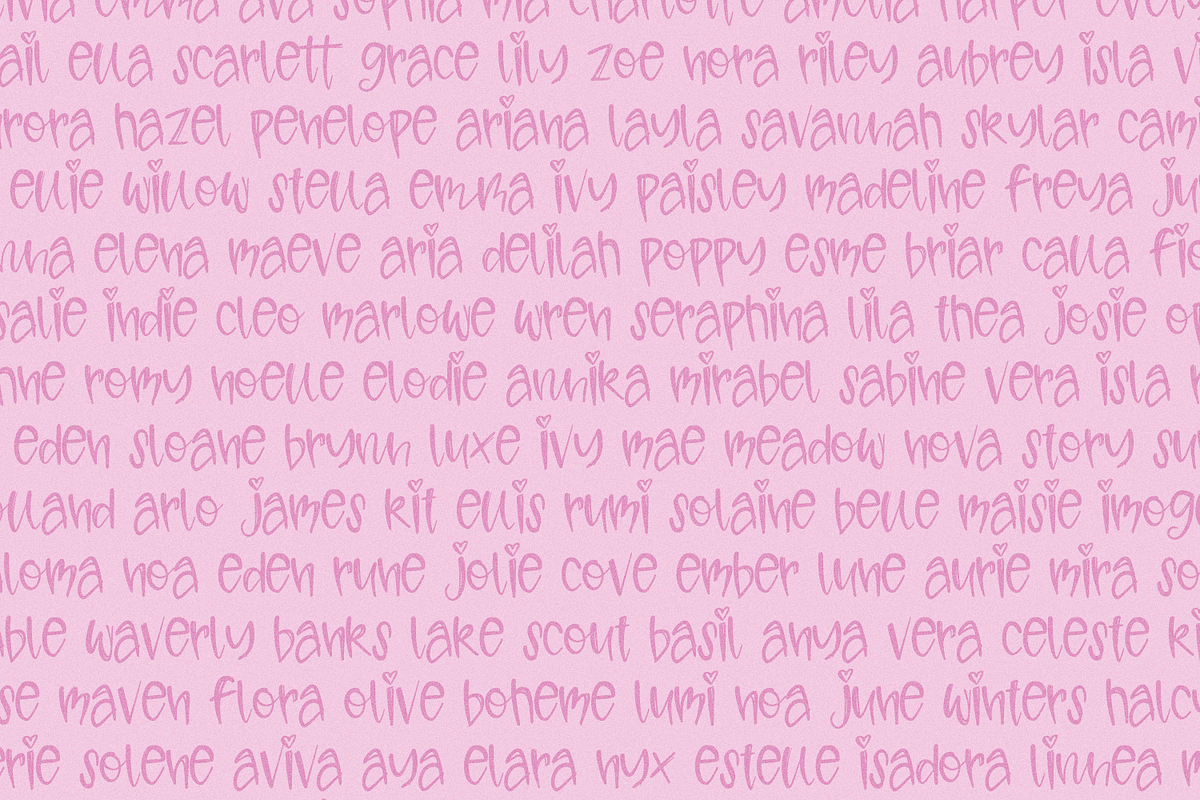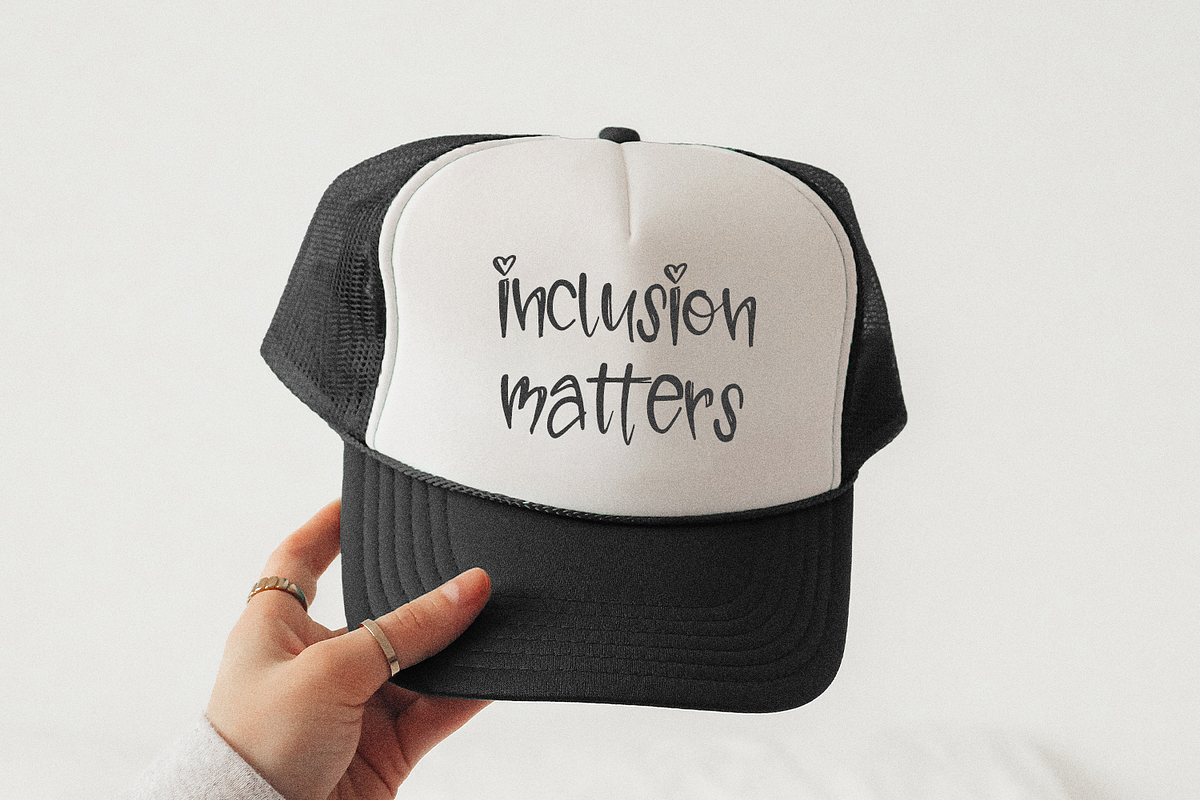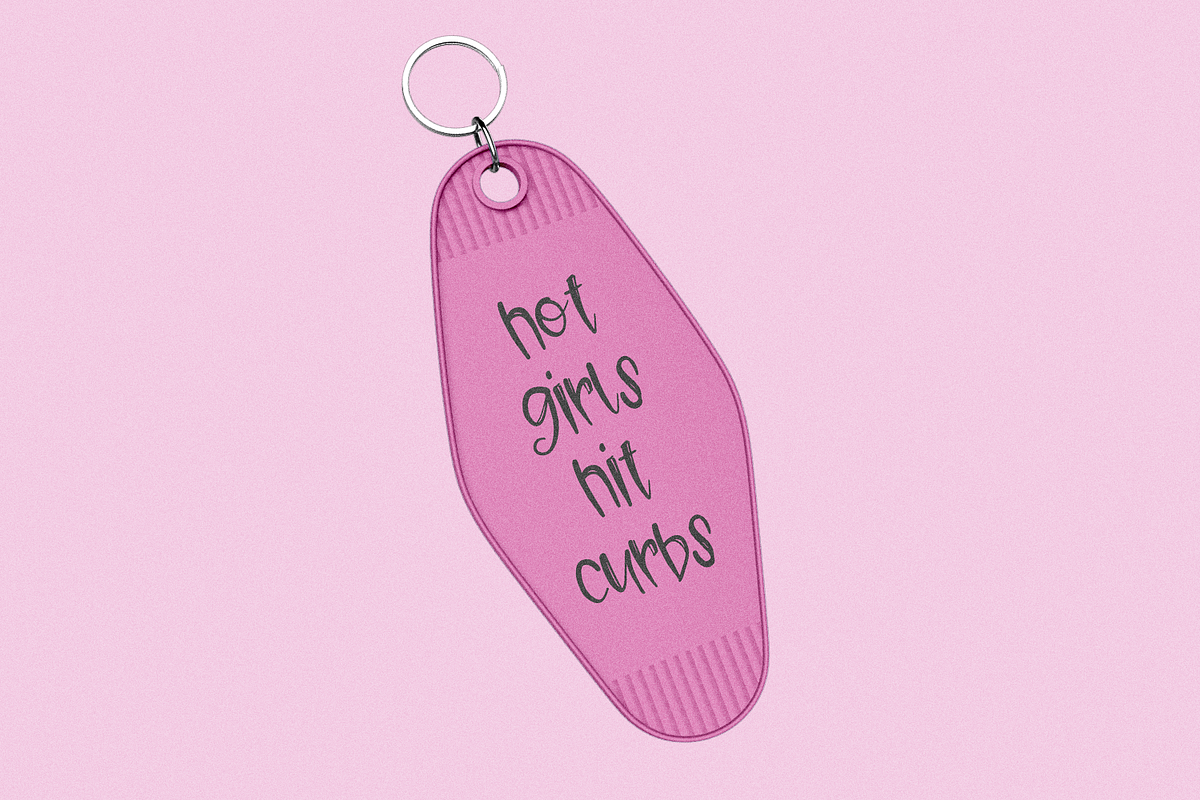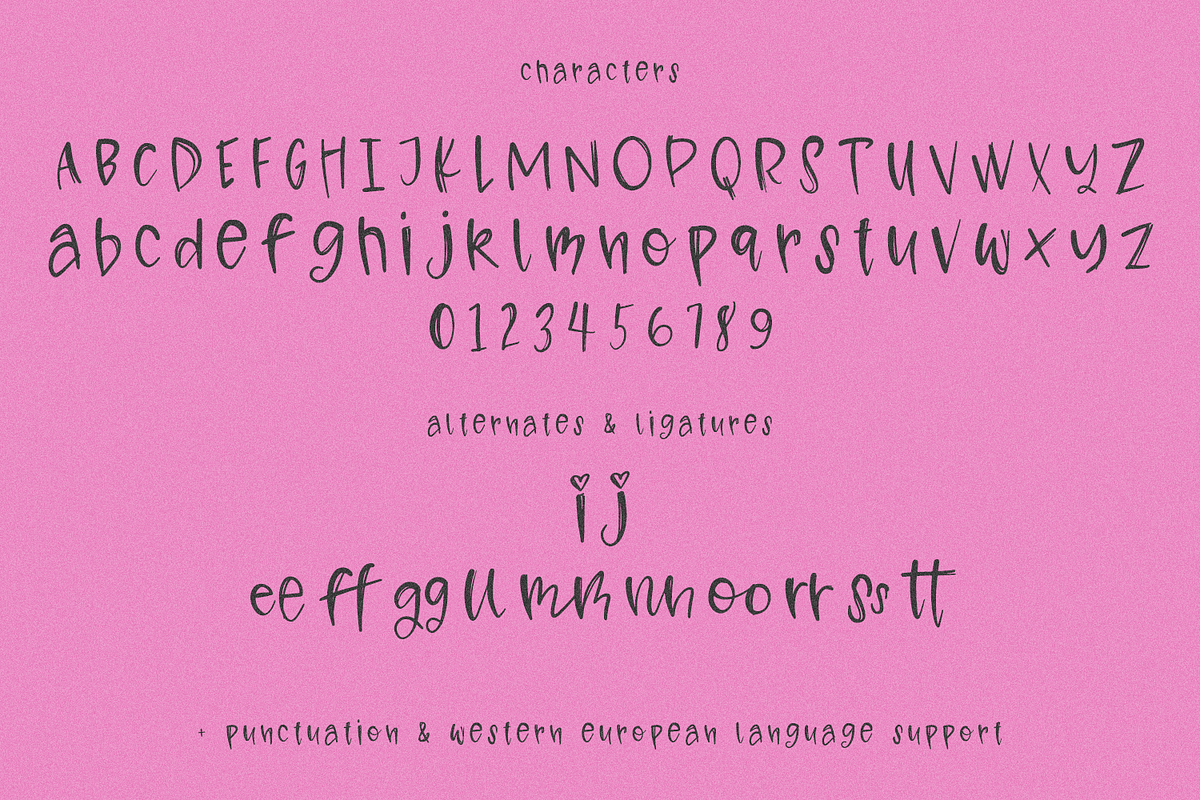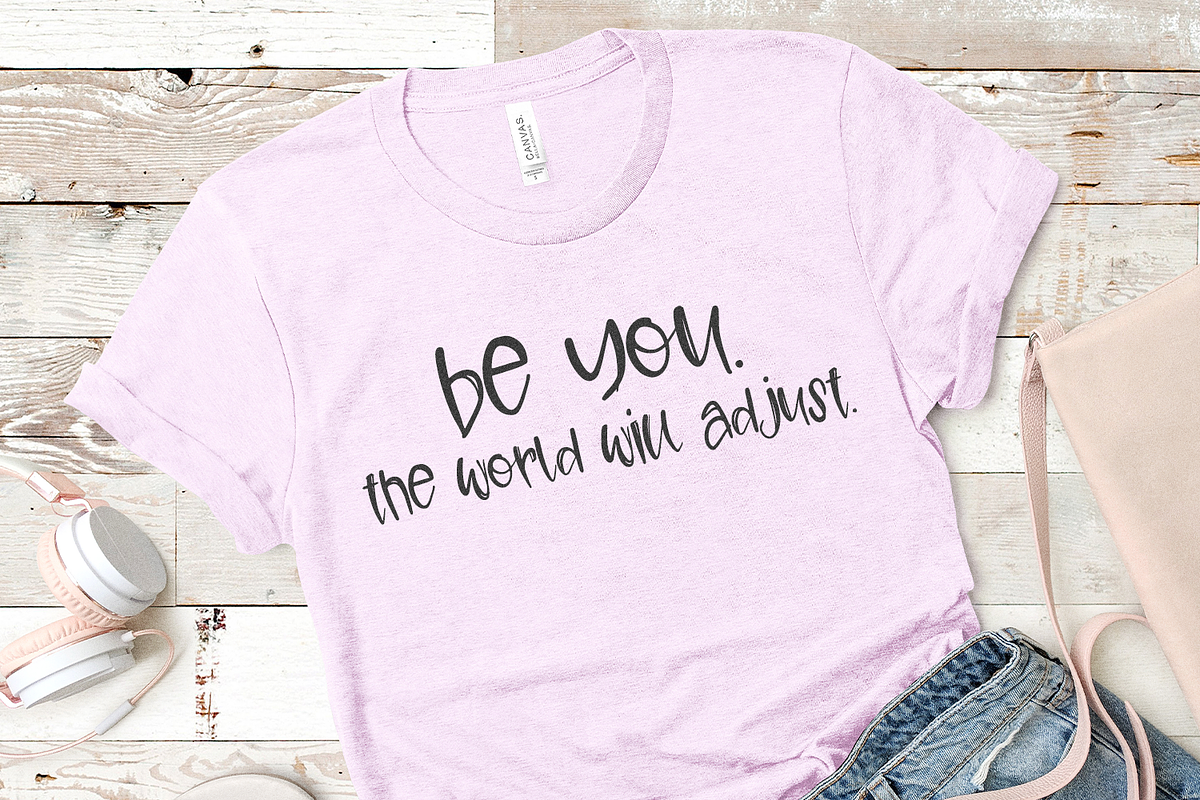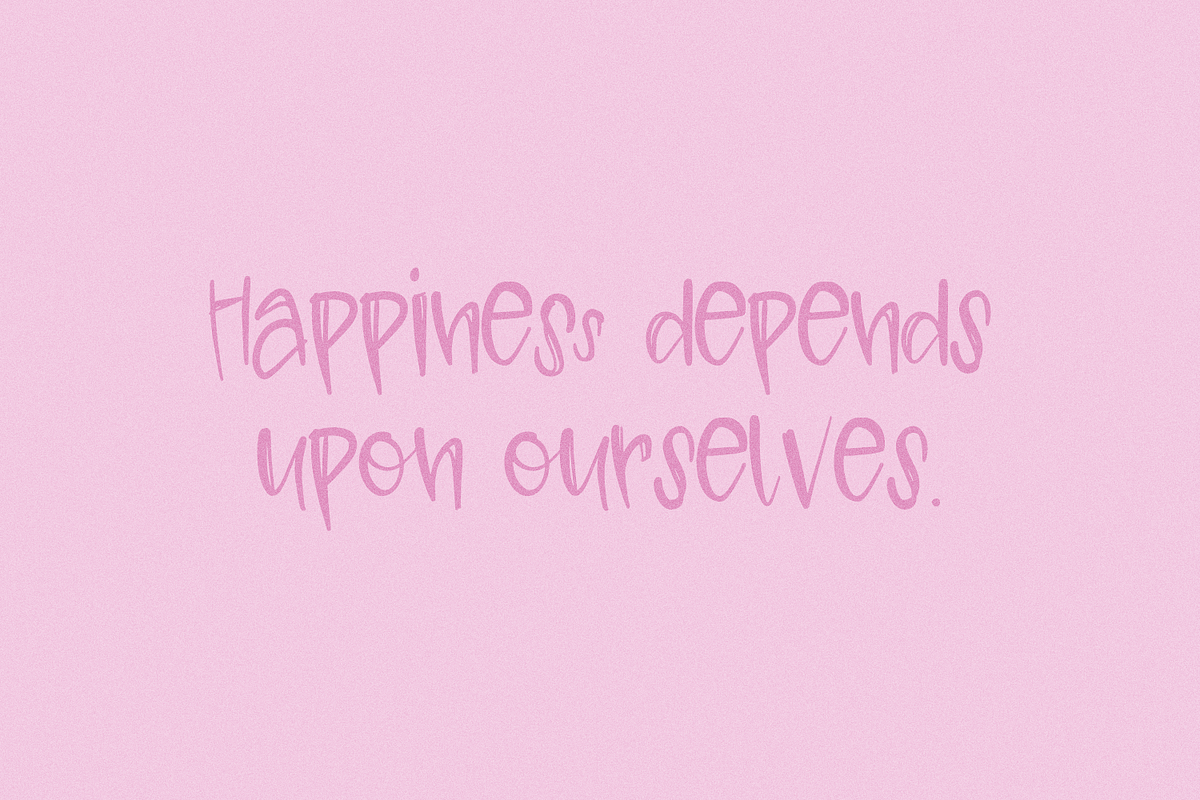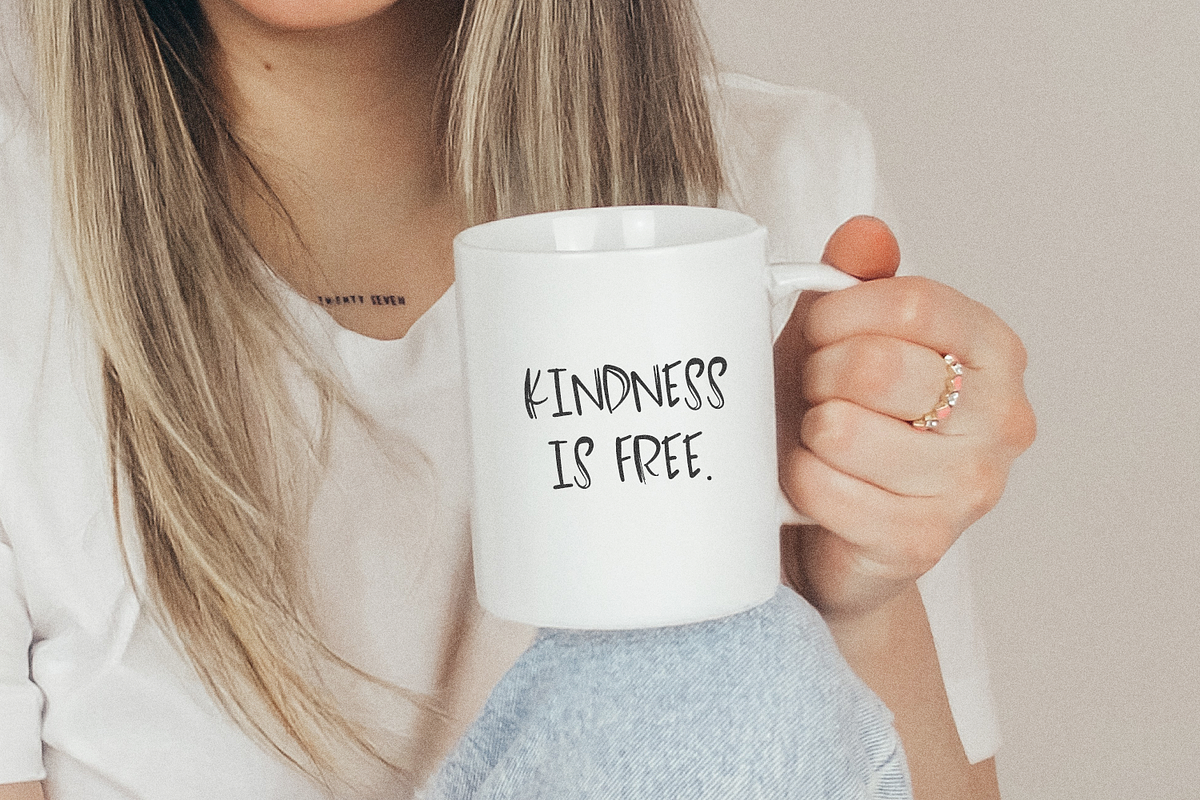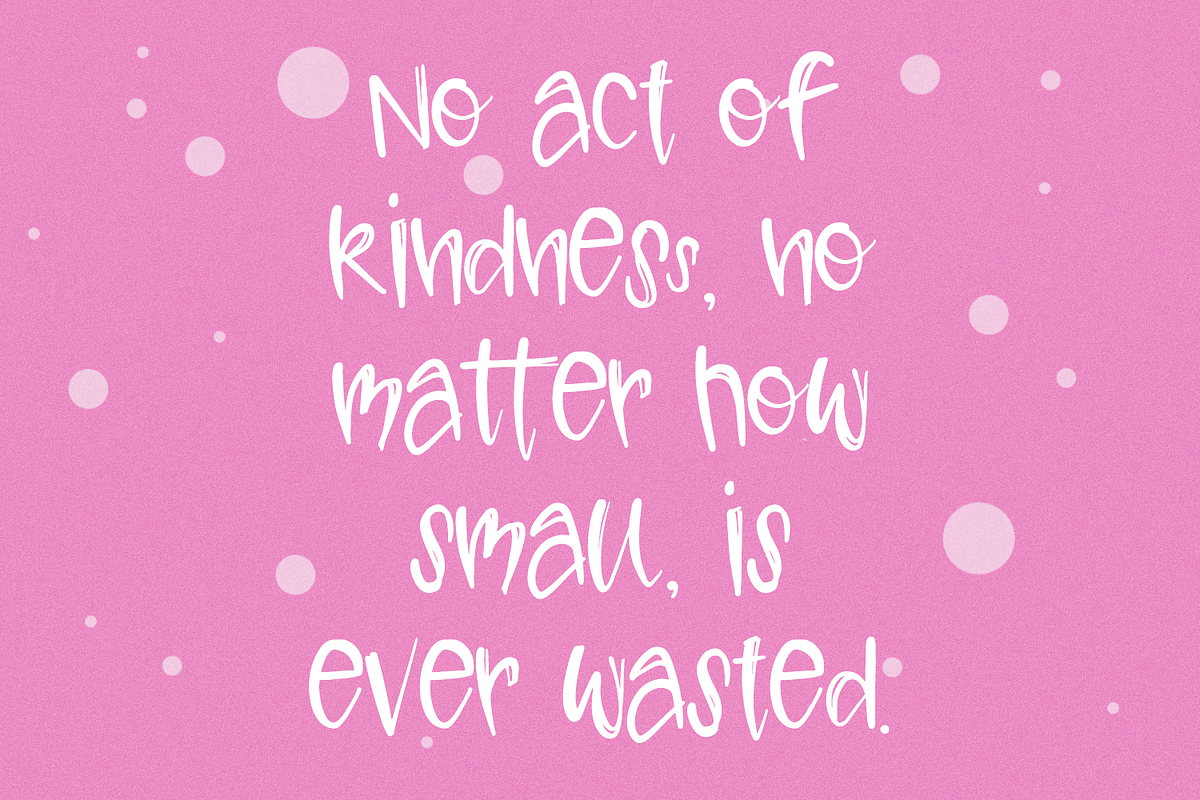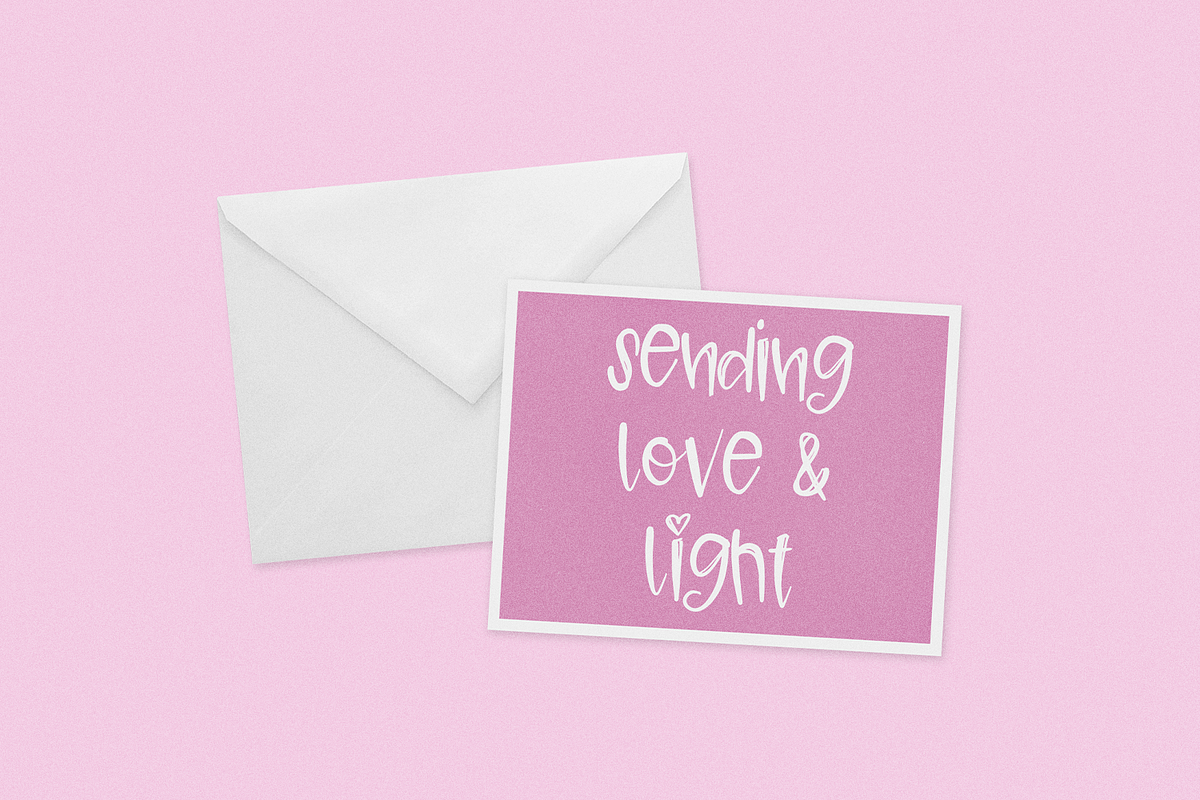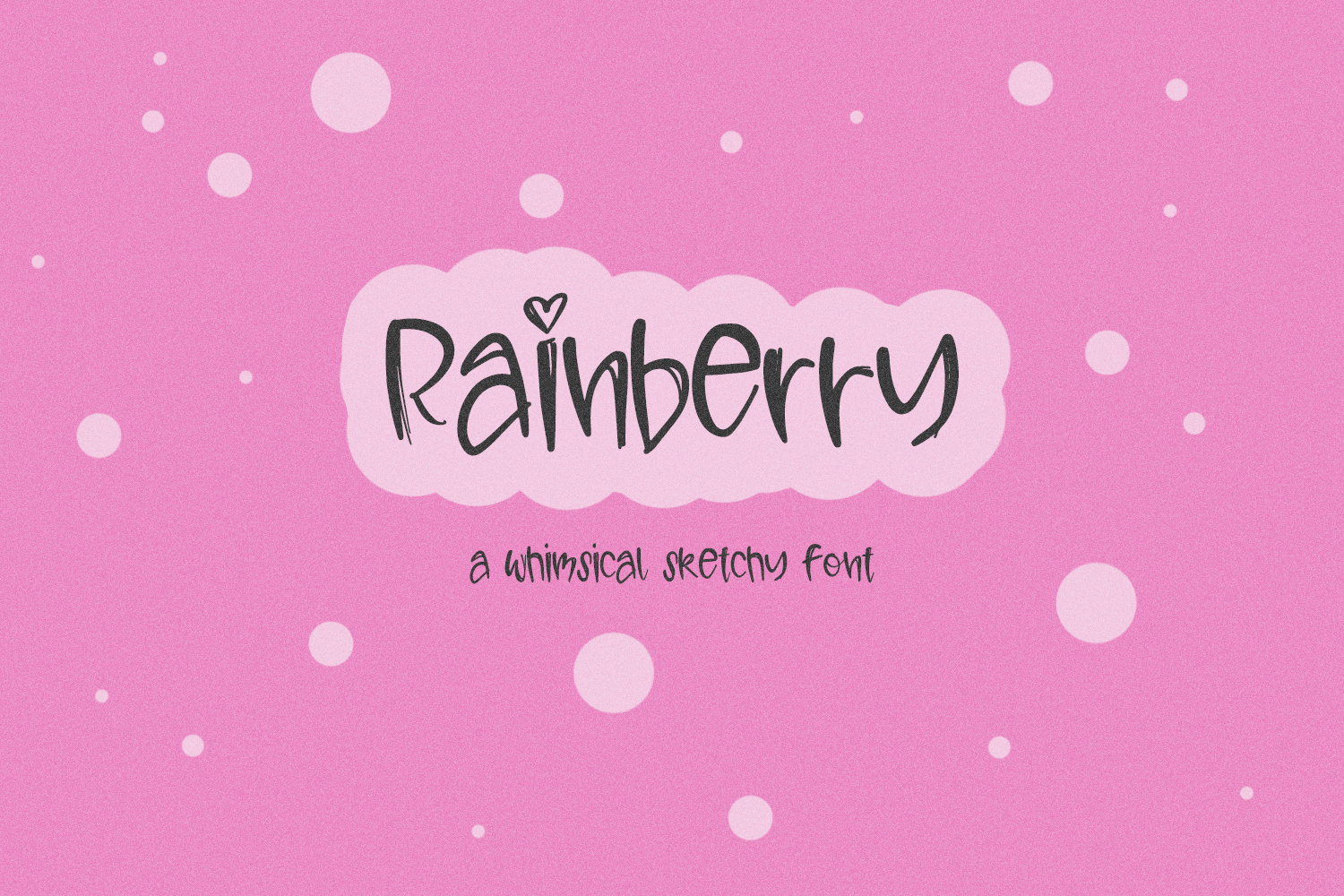
Rainberry Sketch Font
Rainberry Sans is a playful sketchy font. The lowercase letters in Rainberry are tall, like a capital letter, so you could easily mix cases to customize the look of your text.
Rainberry Sans includes:
- full upper + lowercase characters
- numbers + punctuation
- 2 alternates - i, j with little heart dots
- 10 ligatures - ee, ff, gg, ll, mm, nn, oo, rr, ss, tt
- Western European language support - English, French, Spanish, Portuguese (Brazil), Portuguese (Portugal), Italian, German (Germany), German (Austria), Dutch, Danish, Swedish, Norwegian (Bokmål and Nynorsk), Finnish, Icelandic, Irish, Welsh